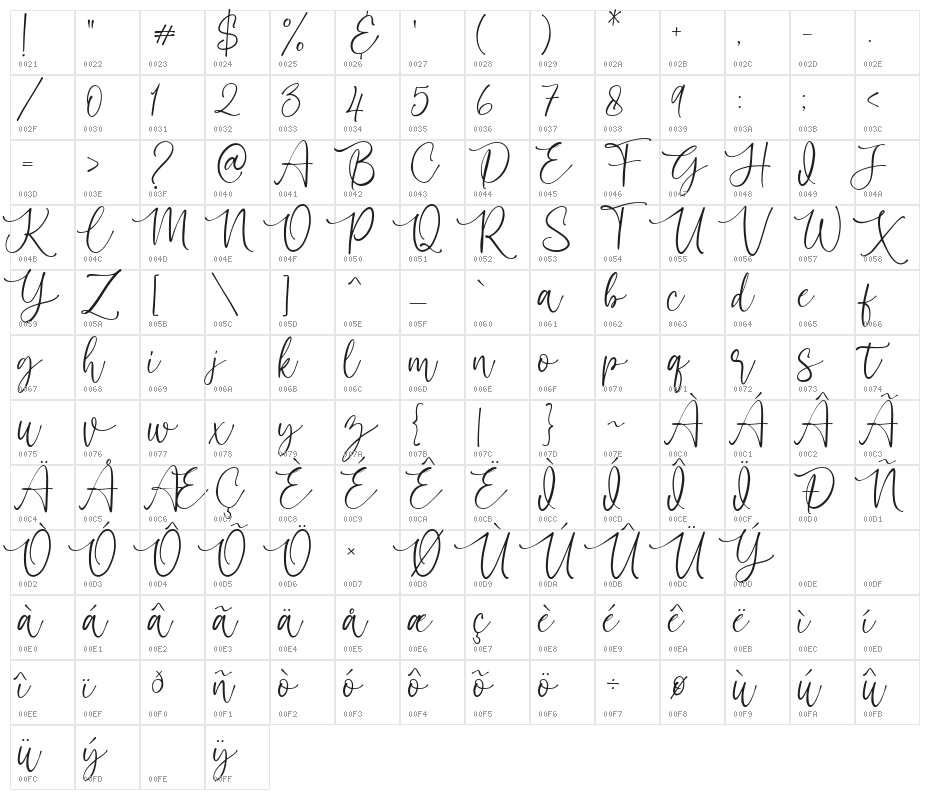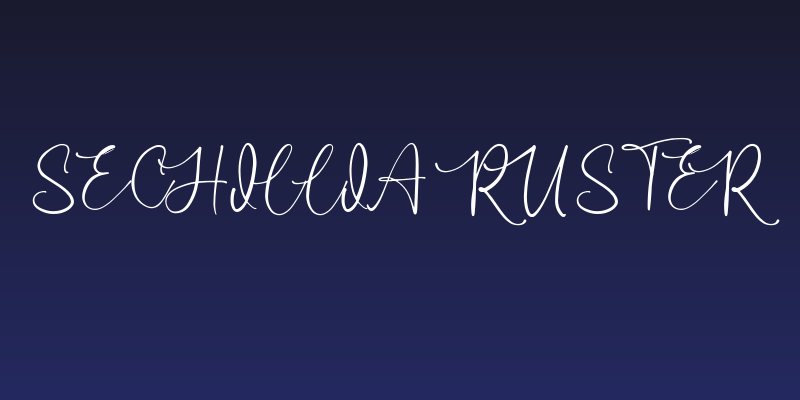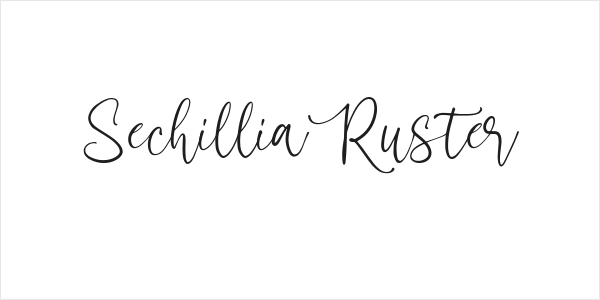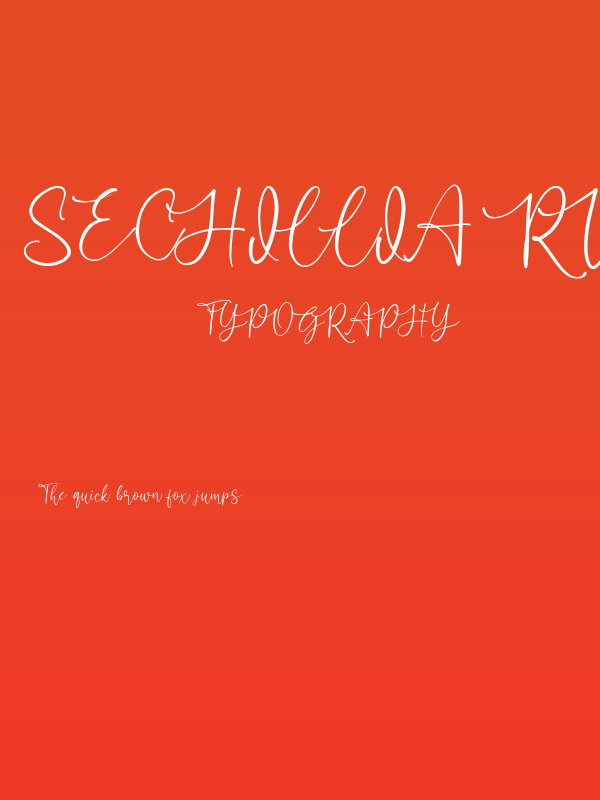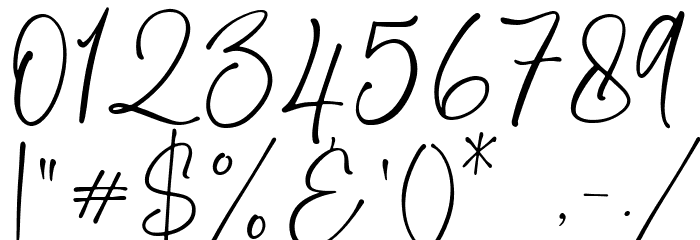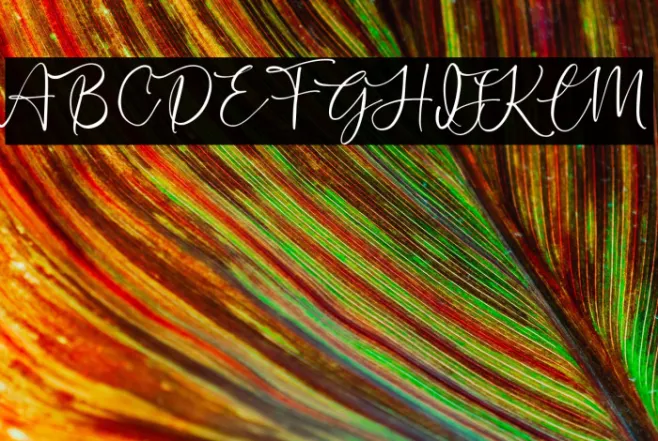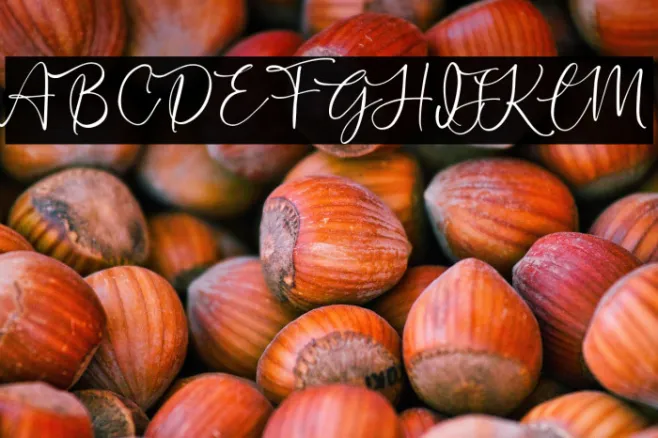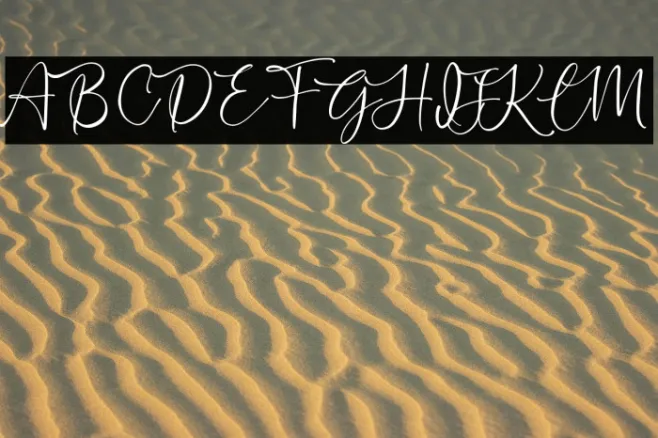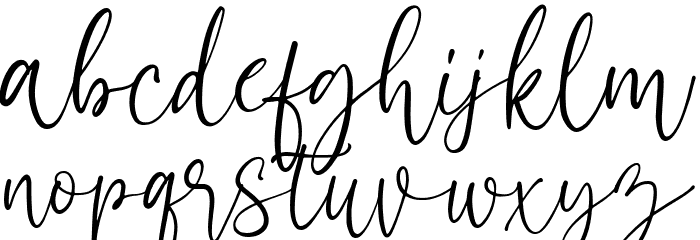
Sechillia Ruster Font
Sechillia Ruster Description
This font features a flowing, cursive style that exudes elegance and sophistication. The letters are interconnected with smooth, sweeping strokes, creating a sense of fluidity and movement. The uppercase characters are slightly more elaborate, with decorative loops and flourishes, while the lowercase letters maintain a consistent, graceful appearance. The numerals and special characters are designed to complement the overall script style, ensuring a cohesive look. This font is perfect for projects that require a touch of class and refinement, such as wedding invitations, branding, or any design that aims to convey a personal, handwritten touch.